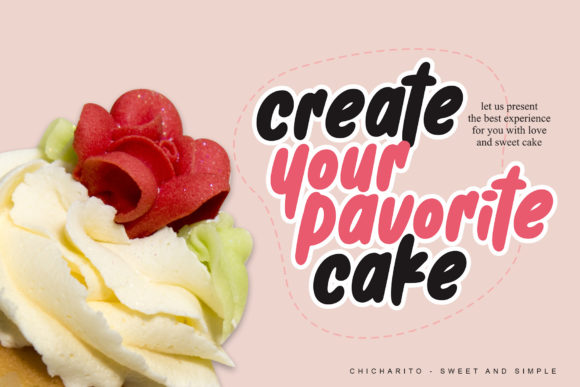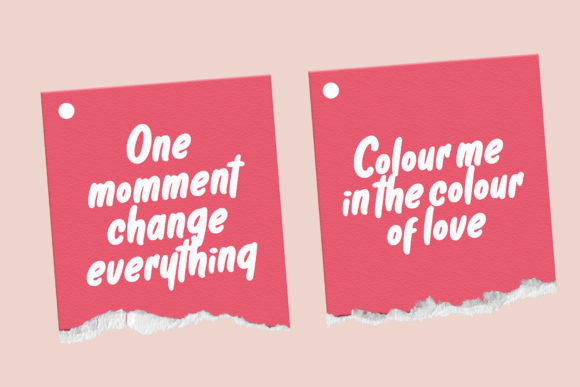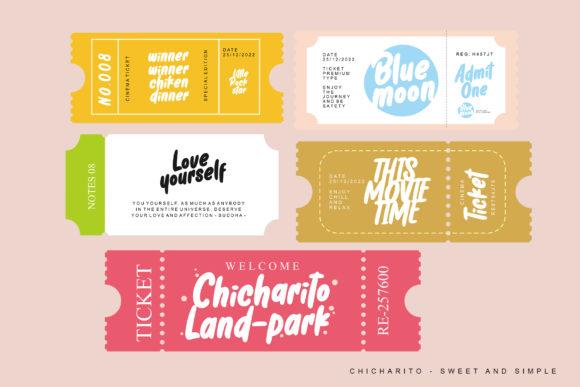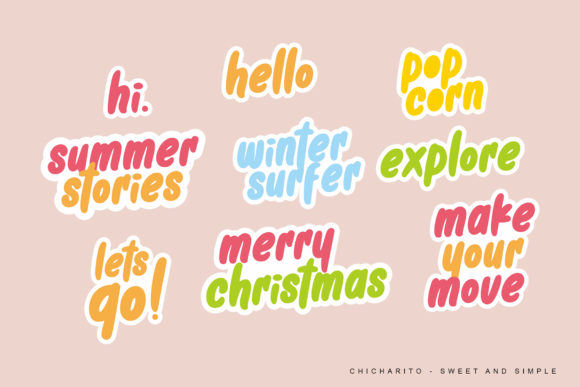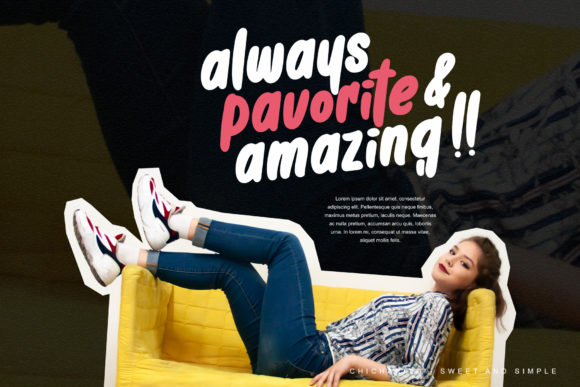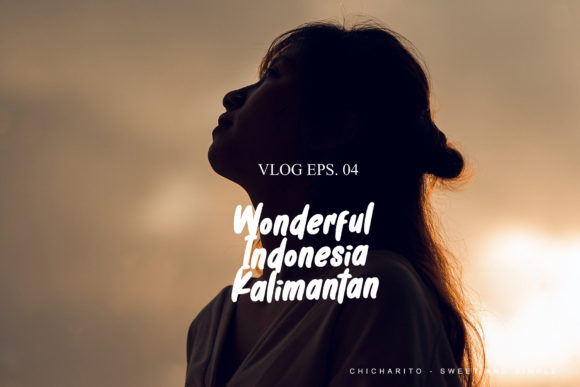
Introducing Chicharito Font: The Perfect Addition to Your Creative Projects
Are you a designer, crafter, or DIY enthusiast looking for a unique and eye-catching font to elevate your creative projects? Look no further than Chicharito Font! This delightful and thick lettered display font is carefully crafted with a touch of love, making it the perfect addition to any design or craft project.
What is Chicharito Font?
Chicharito Font is a display font designed to add a touch of personality and whimsy to any project. Its thick, bold letters are carefully crafted to make a statement, while its elegant lines and curves add a touch of sophistication. Whether you’re looking for fonts for Instagram, calligraphy scripts for DIY projects, logos, packaging, or quotes, Chicharito Font is the perfect choice.
Features of Chicharito Font
So, what makes Chicharito Font so special? Here are just a few of its key features:
- Thick and bold letters: Chicharito Font features thick, bold letters that are perfect for making a statement.
- Elegant lines and curves: Despite its bold nature, Chicharito Font also features elegant lines and curves that add a touch of sophistication.
- Perfect for display text: Chicharito Font is designed specifically for display text, making it perfect for headlines, titles, and other attention-grabbing elements.
- Easy to read: Despite its bold nature, Chicharito Font is surprisingly easy to read, making it perfect for use in a variety of contexts.
- Versatile: Chicharito Font can be used in a wide range of projects, from Instagram posts and DIY crafts to logos and packaging.
Uses for Chicharito Font
So, what can you use Chicharito Font for? The possibilities are endless! Here are just a few ideas to get you started:
- Instagram posts: Add a touch of personality to your Instagram posts with Chicharito Font.
- DIY crafts: Use Chicharito Font to add a personal touch to your DIY crafts, such as signs, cards, and other handmade items.
- Logos and branding: Chicharito Font is perfect for use in logos and branding, adding a touch of personality and whimsy to your business’s identity.
- Packaging: Use Chicharito Font to add a touch of elegance and sophistication to your packaging.
- Quotes and posters: Chicharito Font is perfect for use in quotes and posters, adding a touch of personality and style to your message.
Why Choose Chicharito Font?
So, why should you choose Chicharito Font for your next project? Here are just a few reasons:
- Unique and eye-catching: Chicharito Font is a unique and eye-catching font that is sure to grab attention.
- High-quality design: Chicharito Font is carefully crafted with a touch of love, ensuring a high-quality design that will elevate your projects.
- Easy to use: Chicharito Font is easy to use and can be easily integrated into a wide range of projects.
- Versatile: Chicharito Font can be used in a wide range of projects, making it a great addition to your font library.
| Font Name | Chicharito Font |
| Author | Fourlines.design |
In conclusion, Chicharito Font is a delightful and thick lettered display font that is perfect for designers, crafters, and DIY enthusiasts. Its unique and eye-catching design, high-quality craftsmanship, and versatility make it a great addition to any project. Whether you’re looking for fonts for Instagram, calligraphy scripts for DIY projects, logos, packaging, or quotes, Chicharito Font is the perfect choice. So why wait? Download Chicharito Font today and start elevating your creative projects!
Whether you’re a seasoned designer or a DIY enthusiast, Chicharito Font is sure to inspire your creativity and help you turn any project into a true piece of art!